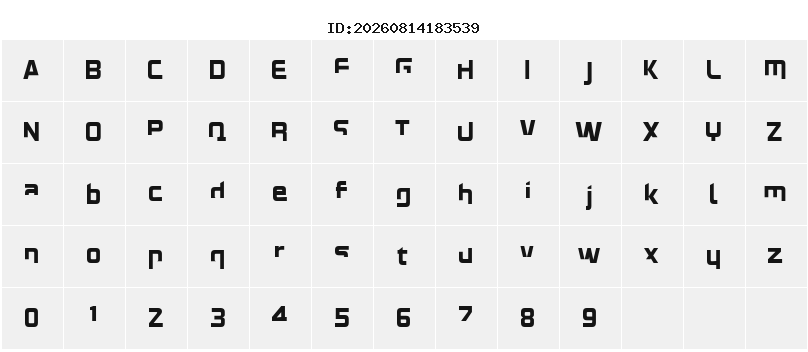
• Font Name: Stepminus
• Full Font Name: Stepminus Normal
About Stepminus.ttf
Stepminus.ttf is a modern, elegant sans-serif font designed for ultimate readability and visual harmony. Perfect for branding, headlines, web design, and print materials.